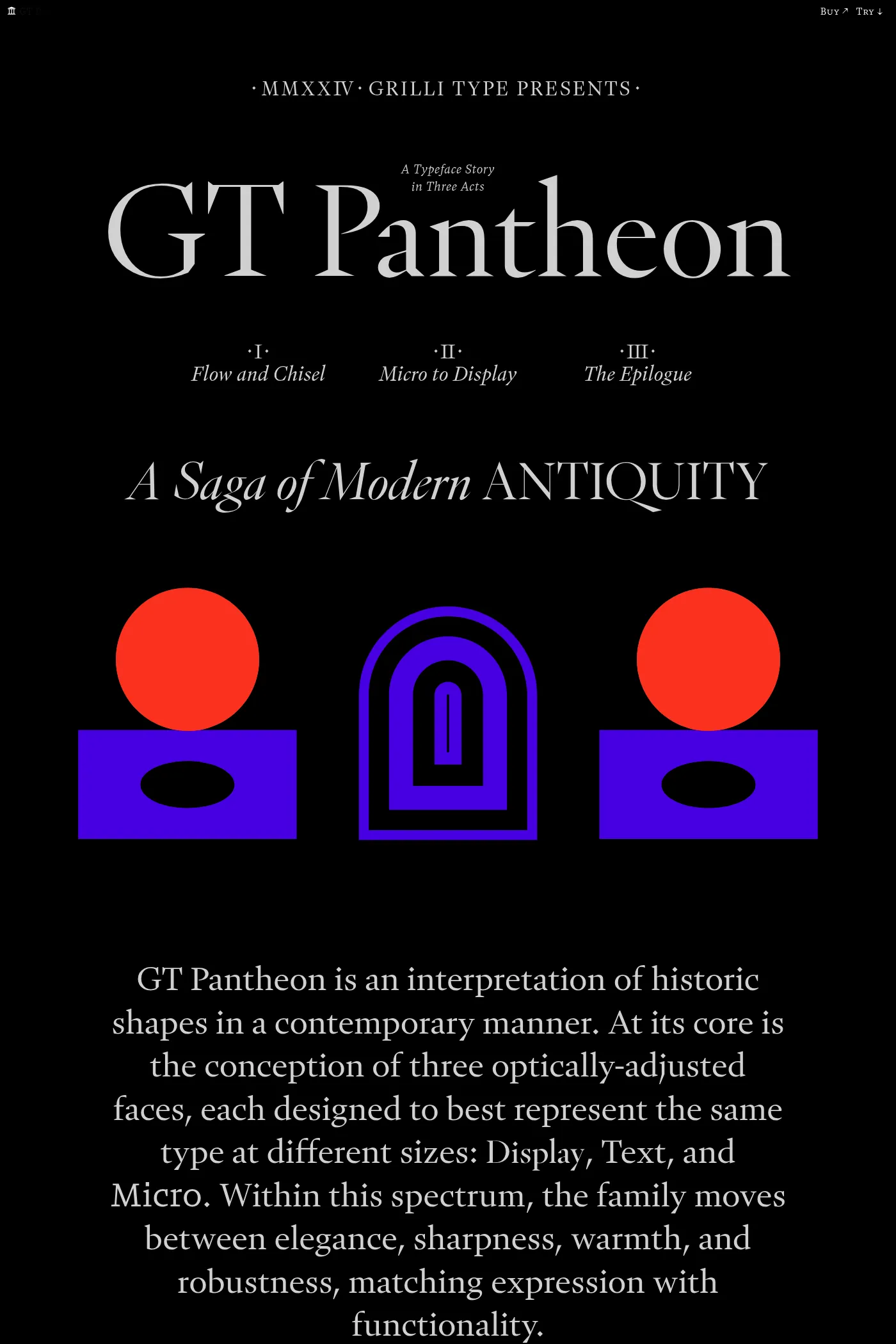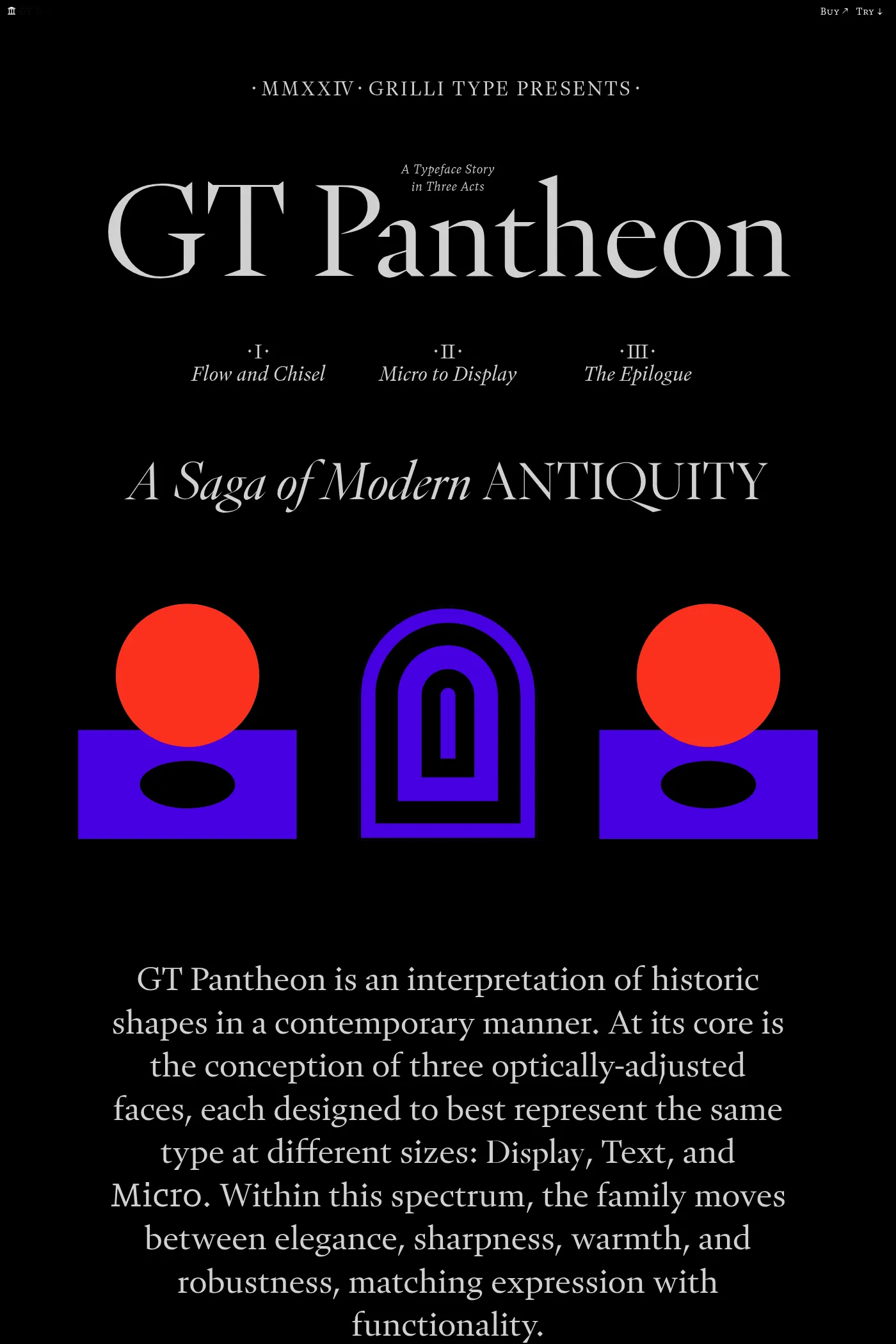
GT Pantheon is a serif typeface from Grilli Type.
GT Pantheon is an interpretation of historic shapes in a contemporary manner. It exhibits an expressive and dynamic character visible in every stroke.